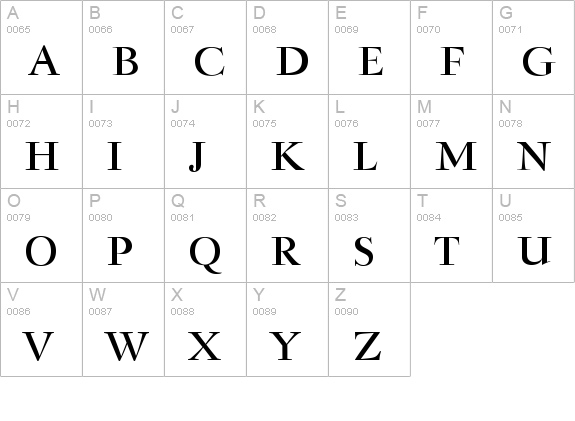
AntiqueModerne-Regular Font Details
AntiqueModerne-Regular is the standard, neutral variant in the AntiqueModerne typeface family \xE2\x80\x94 well suited to general body text, paragraphs, and standard typographic work.
AntiqueModerne-Regular font is a timeless typeface that seamlessly blends the elegance of antique design with a touch of modernity. Its classic yet contemporary style makes it perfect for a wide range of projects, from vintage-inspired branding to sophisticated editorial layouts. This versatile font features clean lines, balanced proportions, and distinctive serifs that add a sense of refinement to any text. Whether you're creating a logo, designing a website, or crafting a print advertisement, AntiqueModerne-Regular is sure to make a lasting impression. Best of all, AntiqueModerne-Regular is available for free download at FontsMarket.com. So go ahead and elevate your designs with this exquisite typeface without breaking the bank. Download AntiqueModerne-Regular today and add a touch of timeless sophistication to your projects.